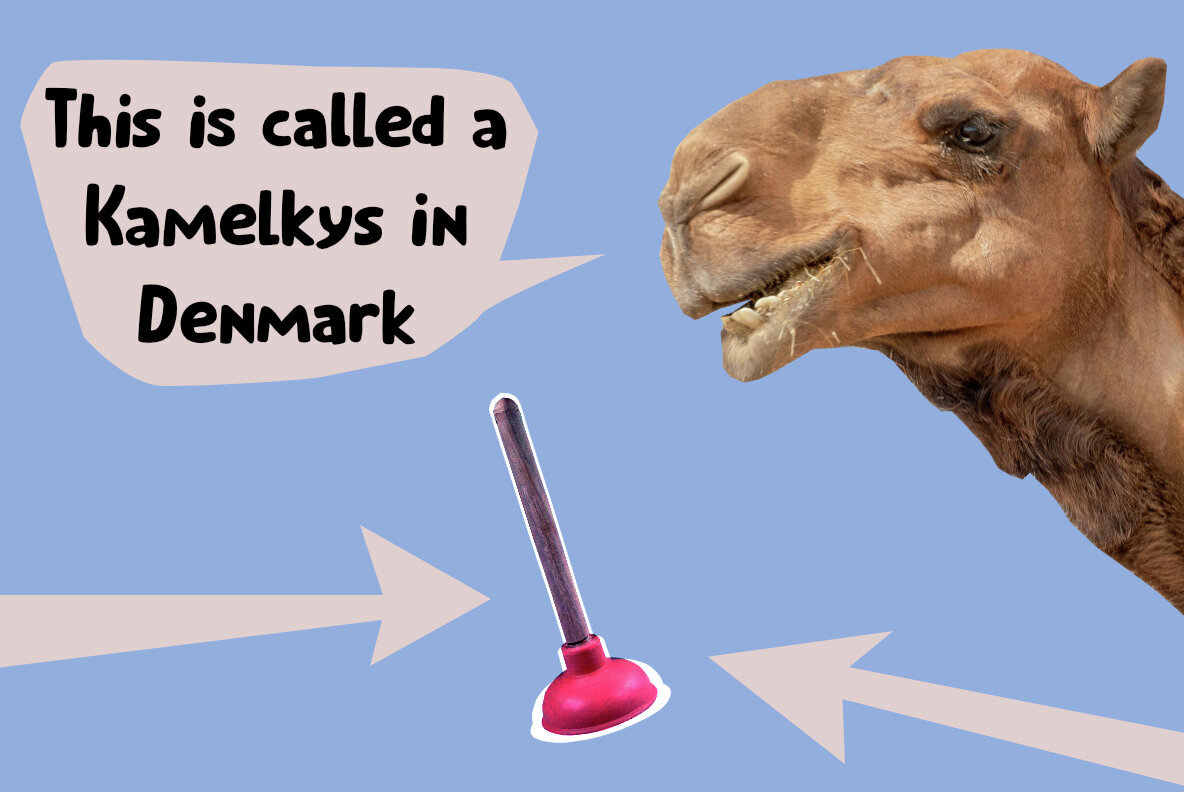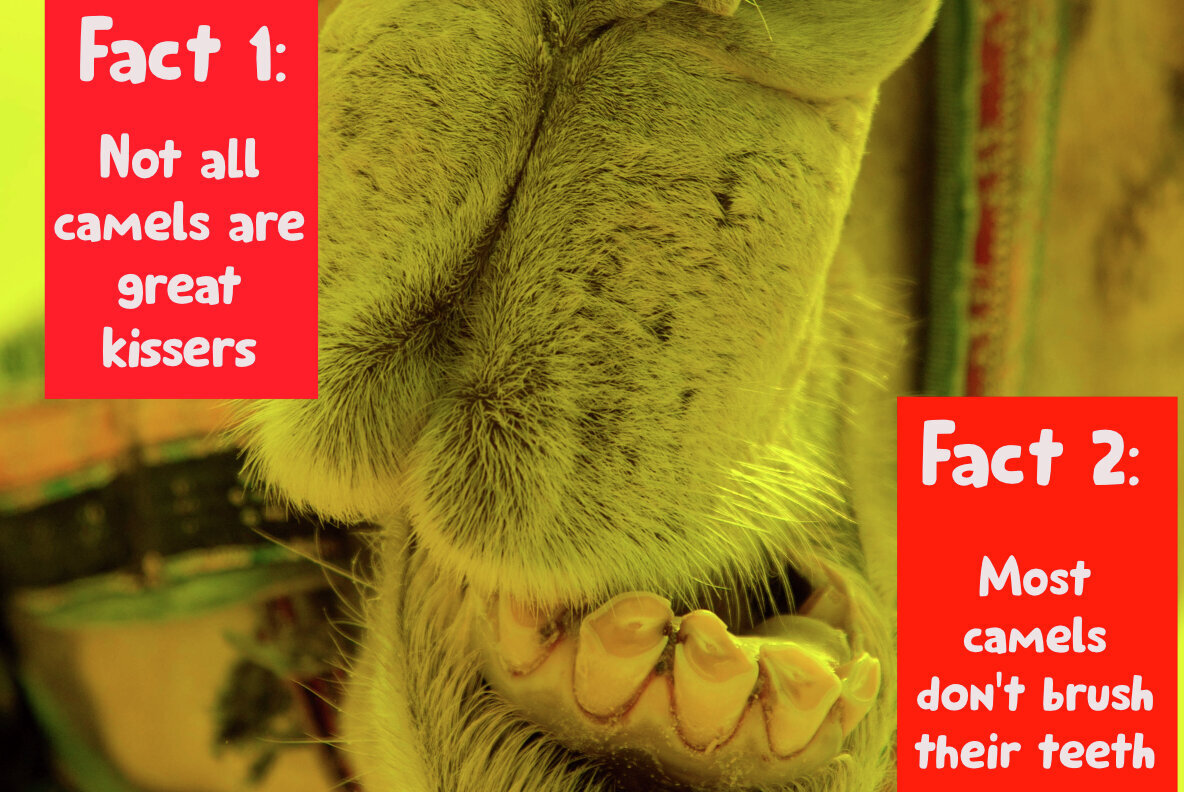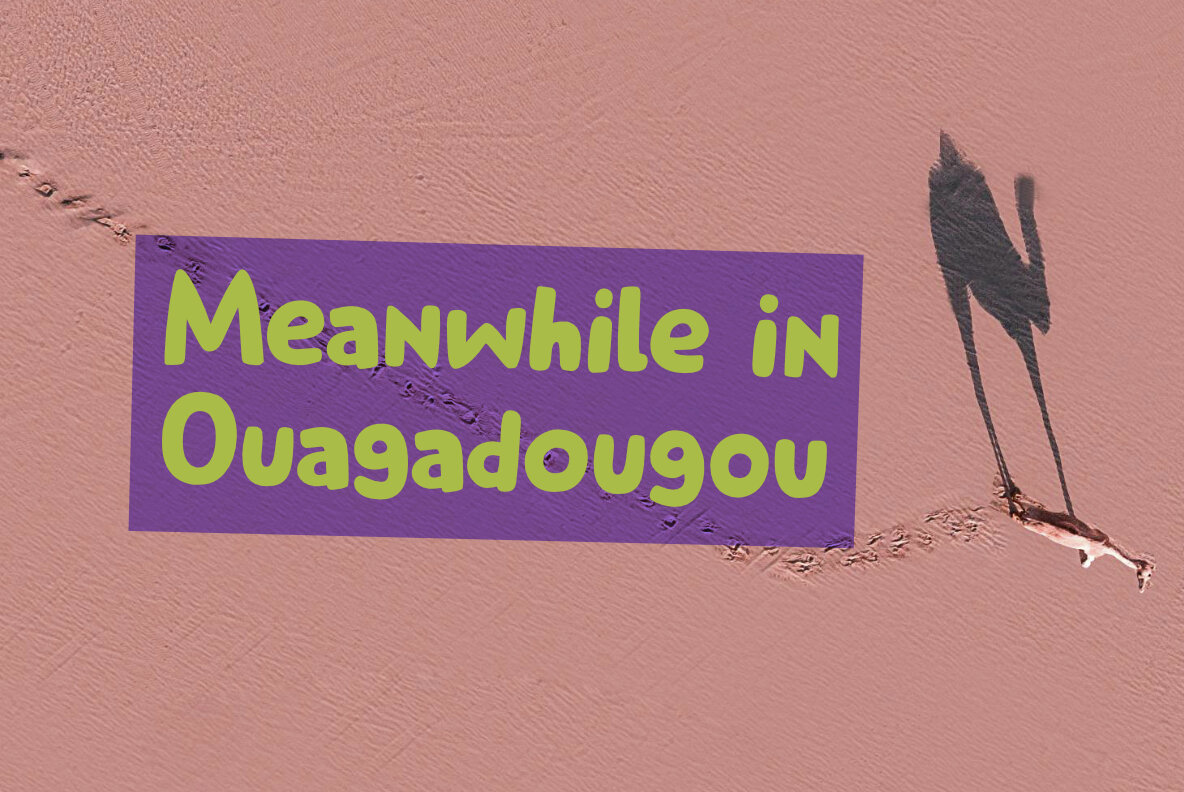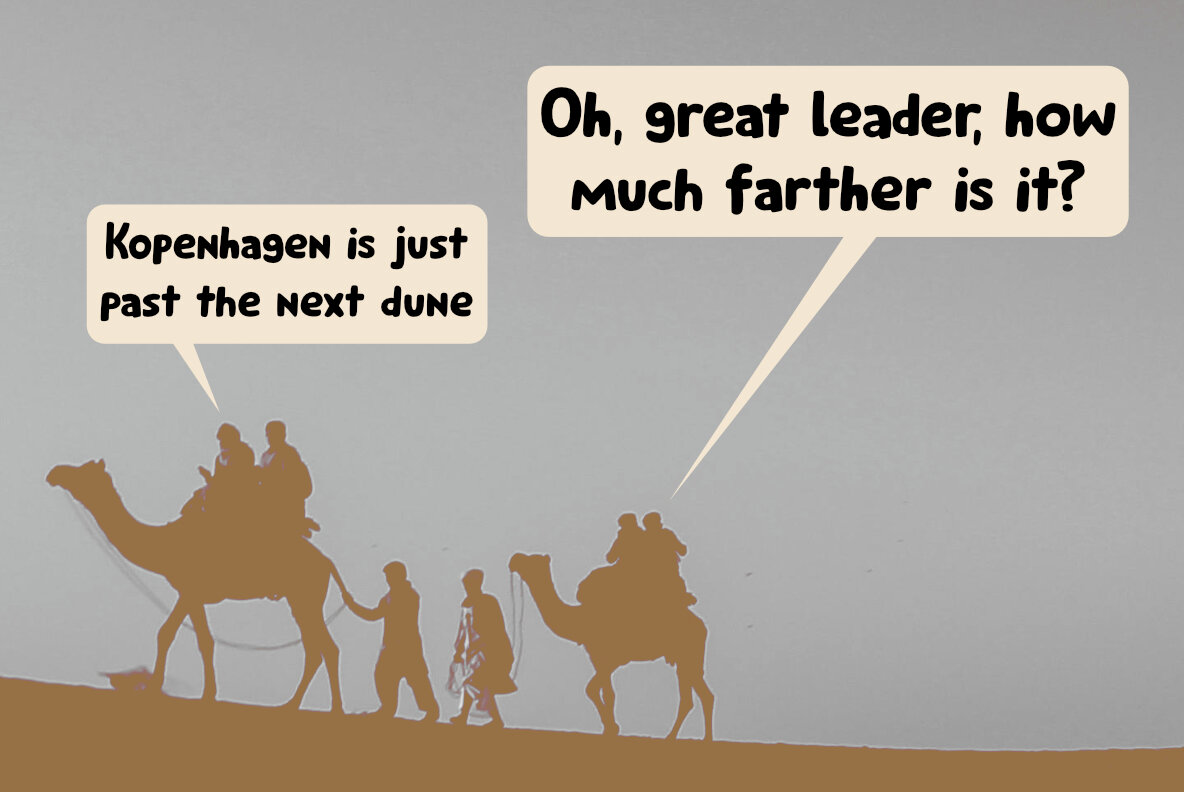
Kamelkys Font
Kamelkys Regular
Kamelkys Italic
Kamelkys in Danish means ‘Camel’s Kiss’. It is also the slang word for a plunger; the rubber kind you use to declog the drain. I guess it is called a Camel’s Kiss for the sound it makes, but I may be wrong there. Kamelkys is a fun font, which can be used for a lot of things. I can name a few here, but I am sure you’ll be able to think of some uses yourself.